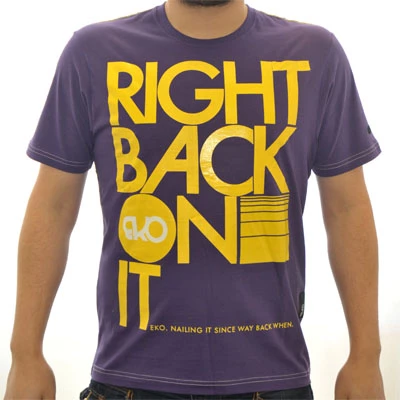
What font is this?
I have to replicate this font on a tshirt. Any idea on what typeface this is?
That's ITC Avant Garde with alternates...
I would guess Futura Medium with an alternate "A".
I tried whatthefont and identifont already. Mike, I think you are right, Futura is the closest I am going to get to this one.